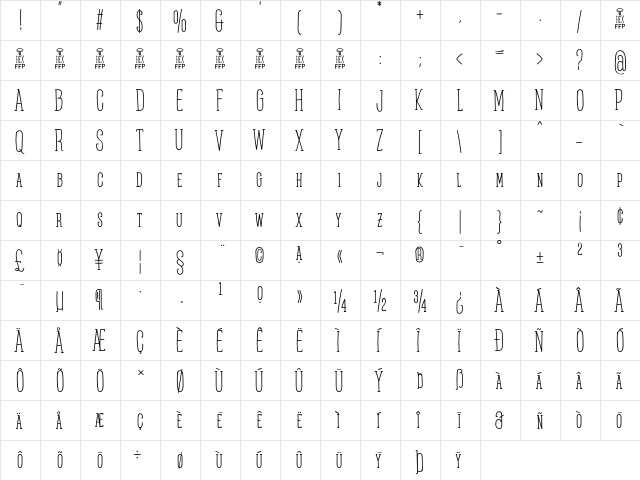
Posteratus Rex FFP
| Foundry | deFharo |
| Designer | Fernando Haro |
Design Context for Posteratus Rex Typeface
Posteratus Rex takes a measured approach to typography — its balanced proportions and neutral character make it a reliable workhorse for both digital and print work.